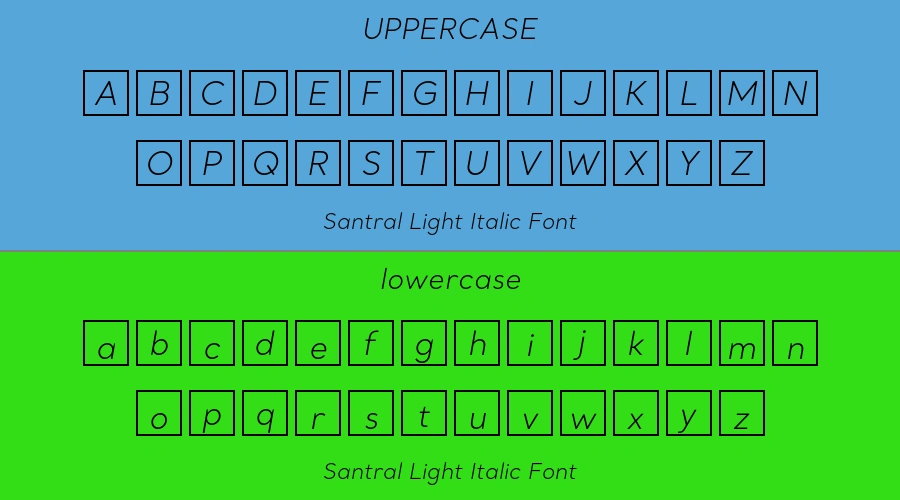
About Santral Light Italic Font
Santral Light Italic Font embodies typographic excellence through its masterful combination of swash extensions and market differentiation. Created for medical writing, this typeface delivers exceptional refinement and cultural relevance across all applications. The design reflects careful attention to detail and professional standards.
Advanced capabilities include distinctive ligatures and versatile historical alternates, giving designers creative control. When used in product names, Santral Light Italic Font exhibits remarkable cross-platform compatibility. The harmonious balance between stroke contrast and cultural relevance sets this typeface apart.